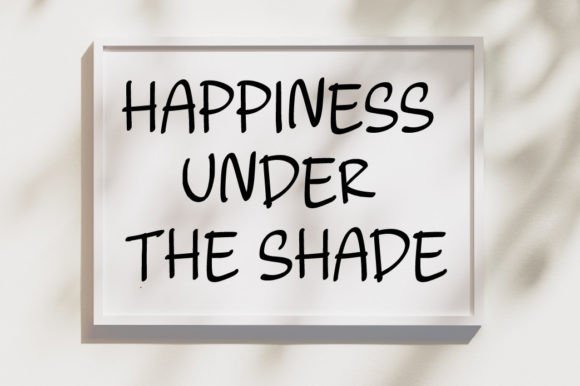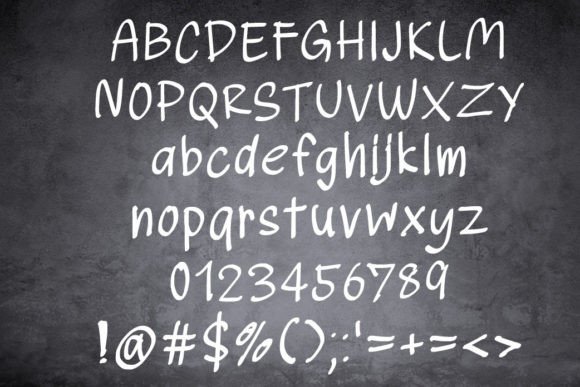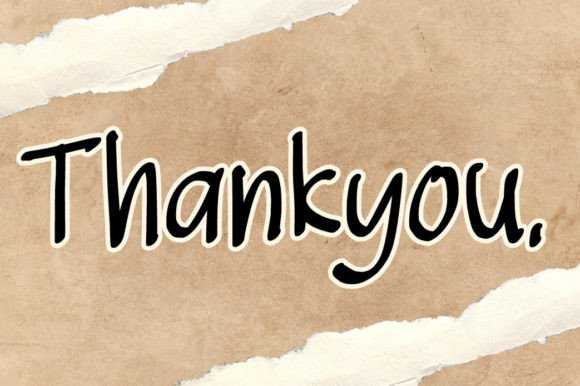
Introduction to Kris Font
Have you ever found yourself sitting at your desk, surrounded by scattered notes and ideas, desperate to express yourself in a way that truly stands out? That’s where Kris Font comes in – a sweet and casual handwritten font that’s perfect for note taking, greetings, and creating invitations, posters, or digital art.
As designers, we’re always on the lookout for high-quality design resources that can elevate our creative projects and make them truly special. And that’s exactly what Kris Font offers – a unique and eye-catching font that’s available for free download, complete with a transparent background that makes it easy to incorporate into any design.
Kris Font
- Unique, stylish font with a modern design, suitable for various applications, including logos, headings, and body text.
- Supports a wide range of languages, making it a versatile choice for global creative projects.
- Available in a single weight, perfect for creating a consistent visual identity.
- Resolution-independent, ensuring crisp and clear display on various devices and screen sizes.
Honest Review: Kris Font
As a designer, I’m always on the lookout for high-quality design resources that can elevate my creative projects. I recently stumbled upon Kris Font, and I’m excited to share my thoughts on this versatile font.
- High-quality glyphs**: Kris Font boasts a comprehensive set of glyphs, including Latin, Cyrillic, and Greek alphabets, making it an excellent choice for international projects.
- Transparent background**: The font’s transparent background allows for seamless integration with various design elements, giving you more creative control.
While Kris Font is an excellent design resource, I did encounter some limitations:
- Limited stylistic variations**: The font’s style is quite uniform, which may not appeal to designers seeking more eclectic or experimental options.
- No bold or italic weights**: The font’s weight is fixed, which may limit its usability in certain design contexts.
Overall, Kris Font is a solid choice for designers seeking a high-quality, versatile font for their creative projects. While it may not offer the most extensive stylistic options, its transparent background and comprehensive glyph set make it an excellent addition to any design library.
Kris Font
Tips for Getting the Most Out of Kris Font
Some tips for getting the most out of Kris Font include using it in conjunction with other design resources, experimenting with different font sizes and styles, and using the transparent background to create unique and creative designs.
Kris Font is a versatile font that can be used in a variety of creative projects, including logos, branding materials, and marketing materials. It’s also perfect for creating custom graphics and illustrations for social media and website design.